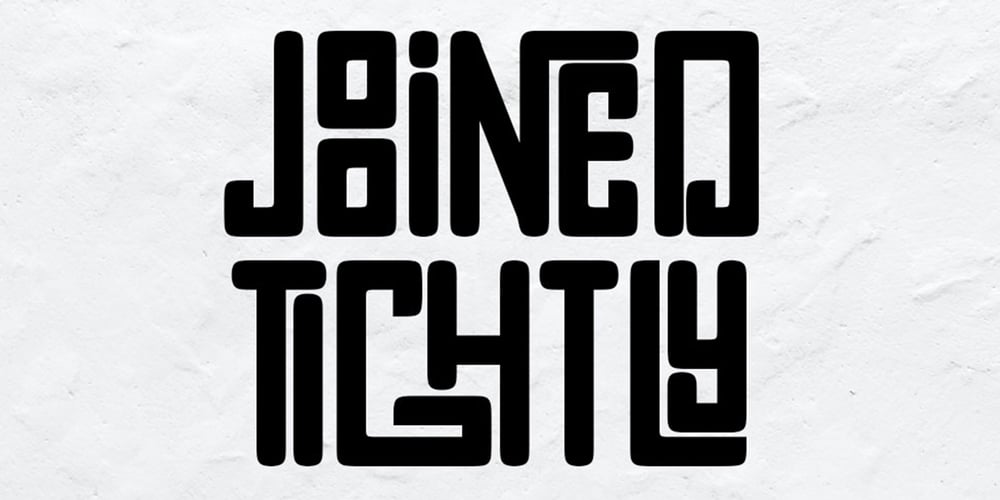
Joined Tightly Font Family was designed by Ibram Syah and published by Jehansyah. Joined Tightly contains 1 styles and family package options. This is a very unique font, because of its cute appearance, will give your designs a very modern look.use this design for any design that smells retro or futuristic, suitable for any appearance of any media design,and supported by unique ligatures,very easy to use